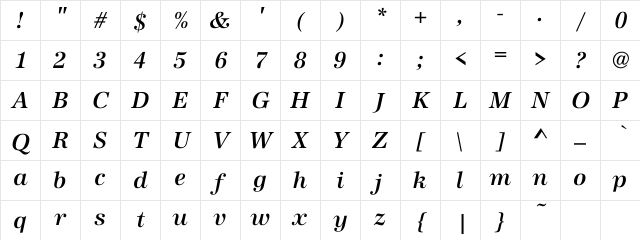
Burgundian Medium Italic Italic
Design Context for Burgundian Medium Italic
Burgundian Medium Italic is a composed and adaptable typeface that performs quietly and consistently across a wide range of design contexts. The slanted form adds forward momentum and visual energy.
Pro Tip: Use Burgundian Medium Italic for emphasis, pull quotes, and subheadings where its slanted energy can add rhythm to the layout.